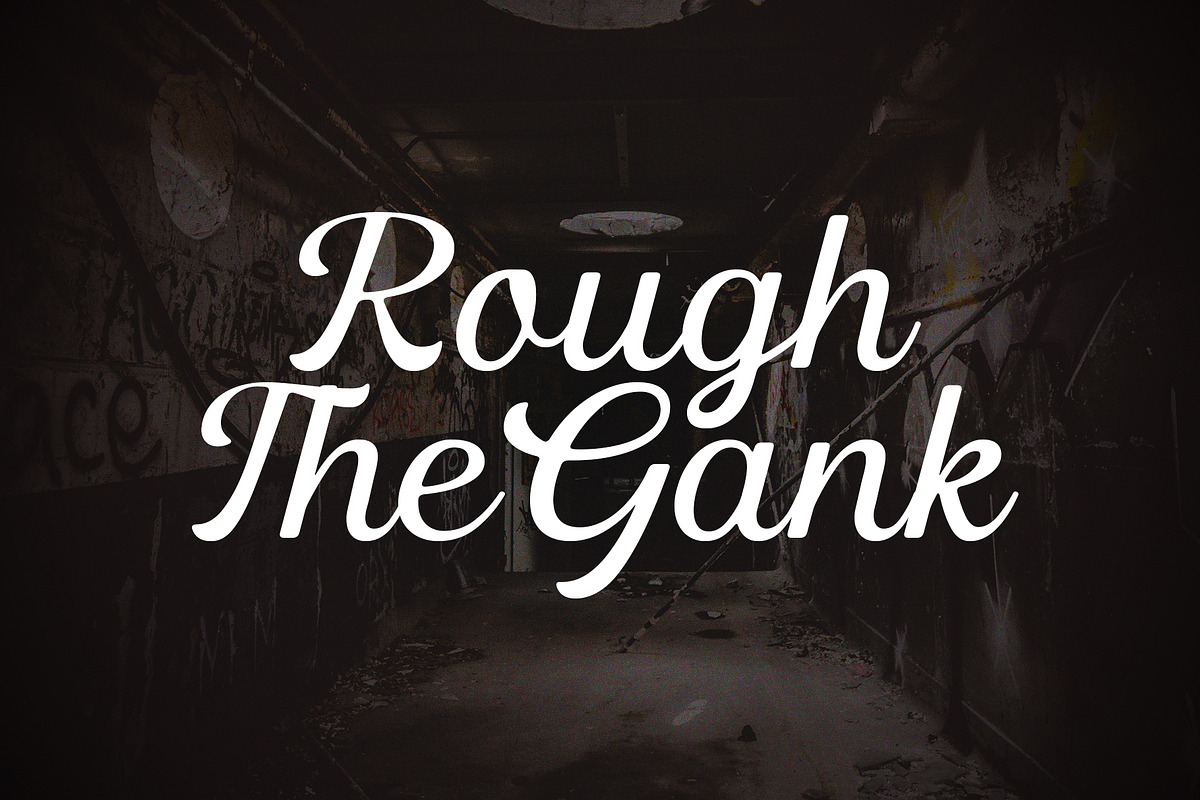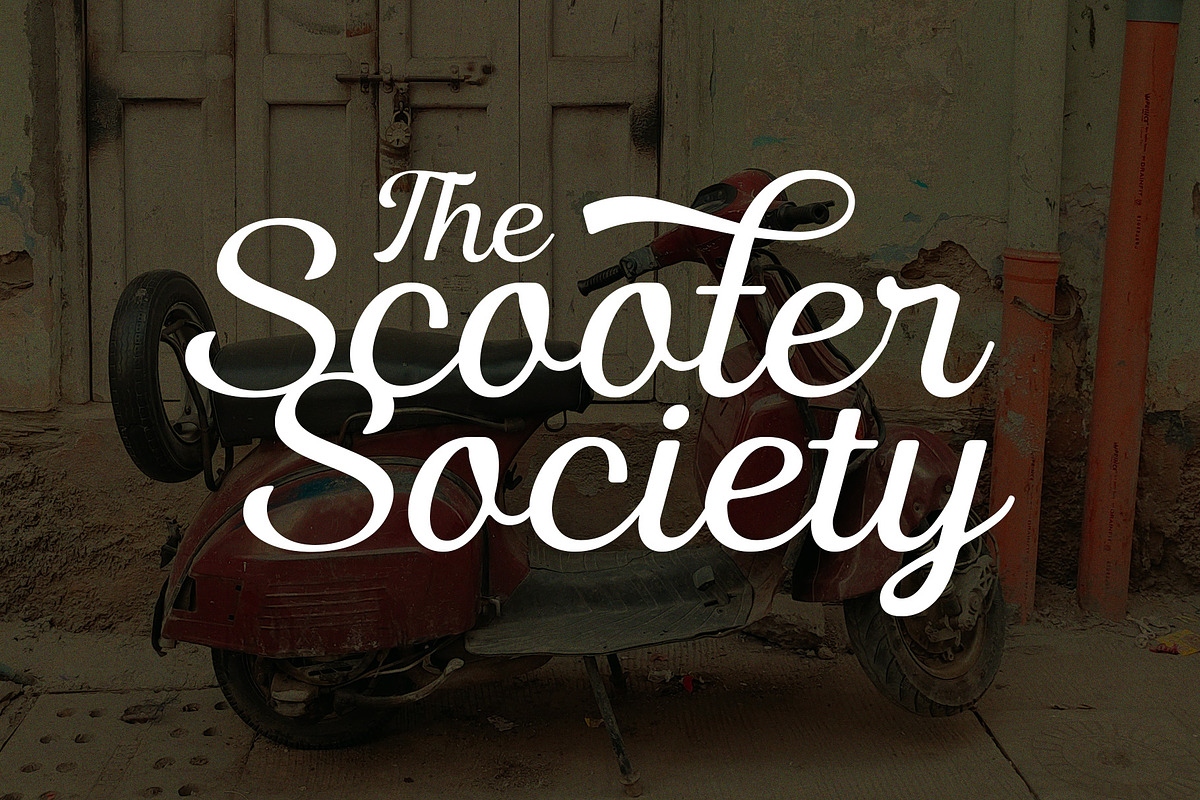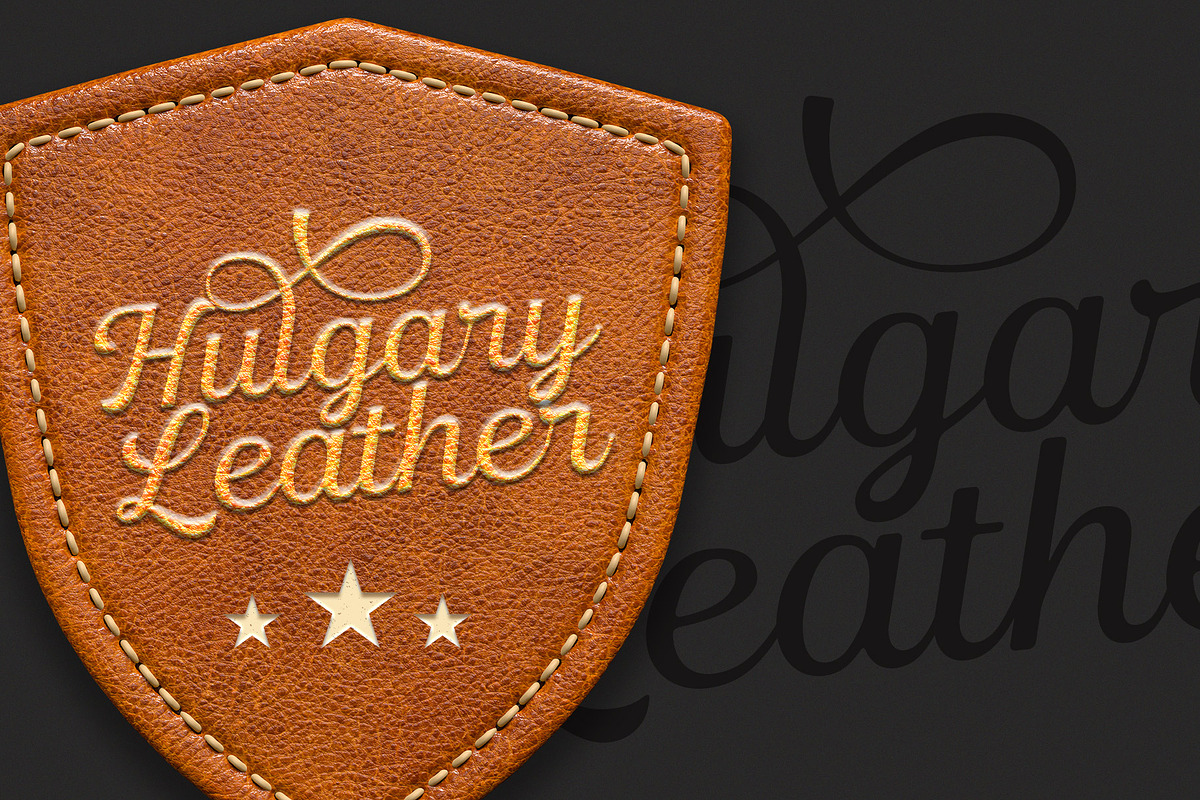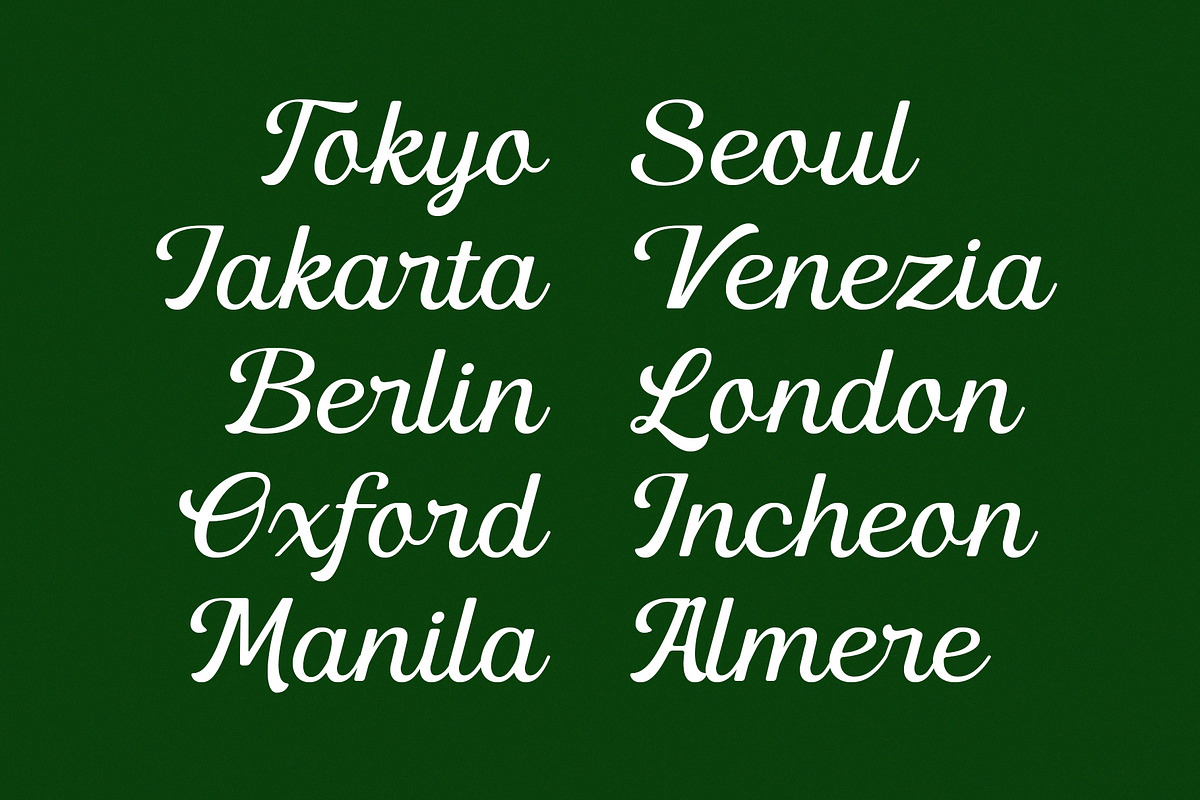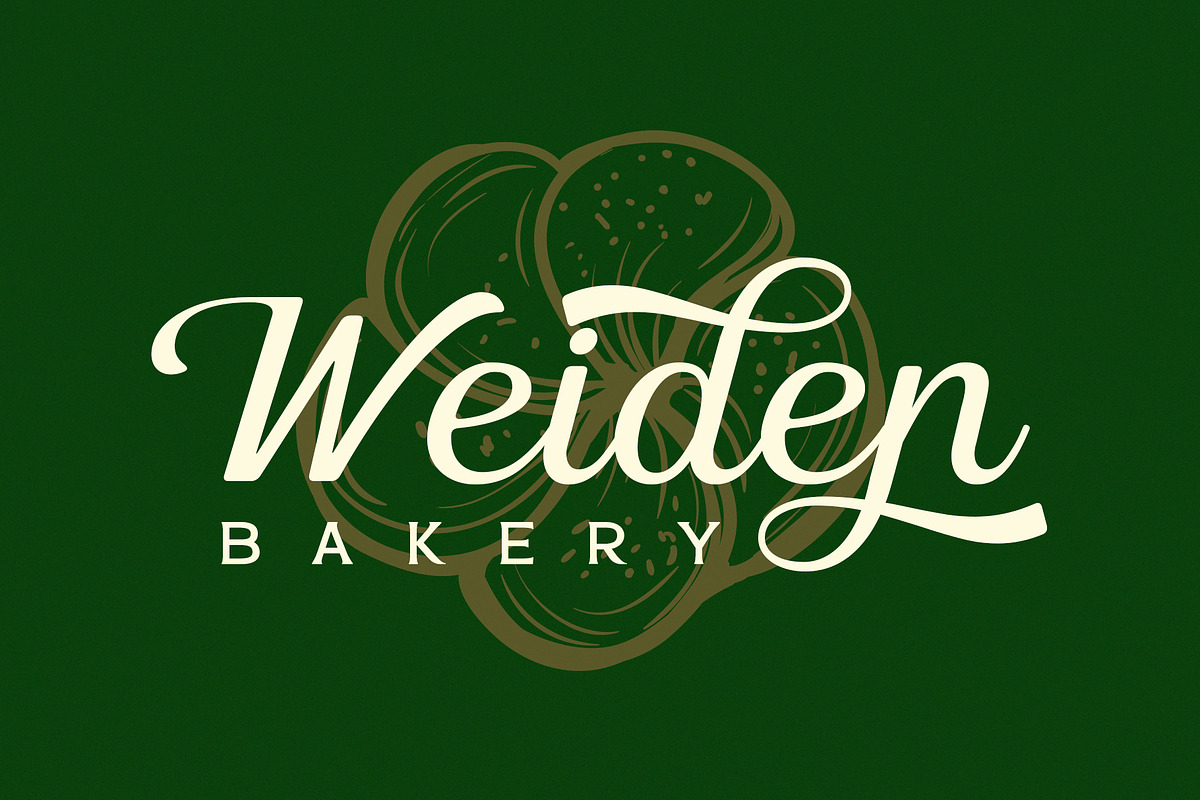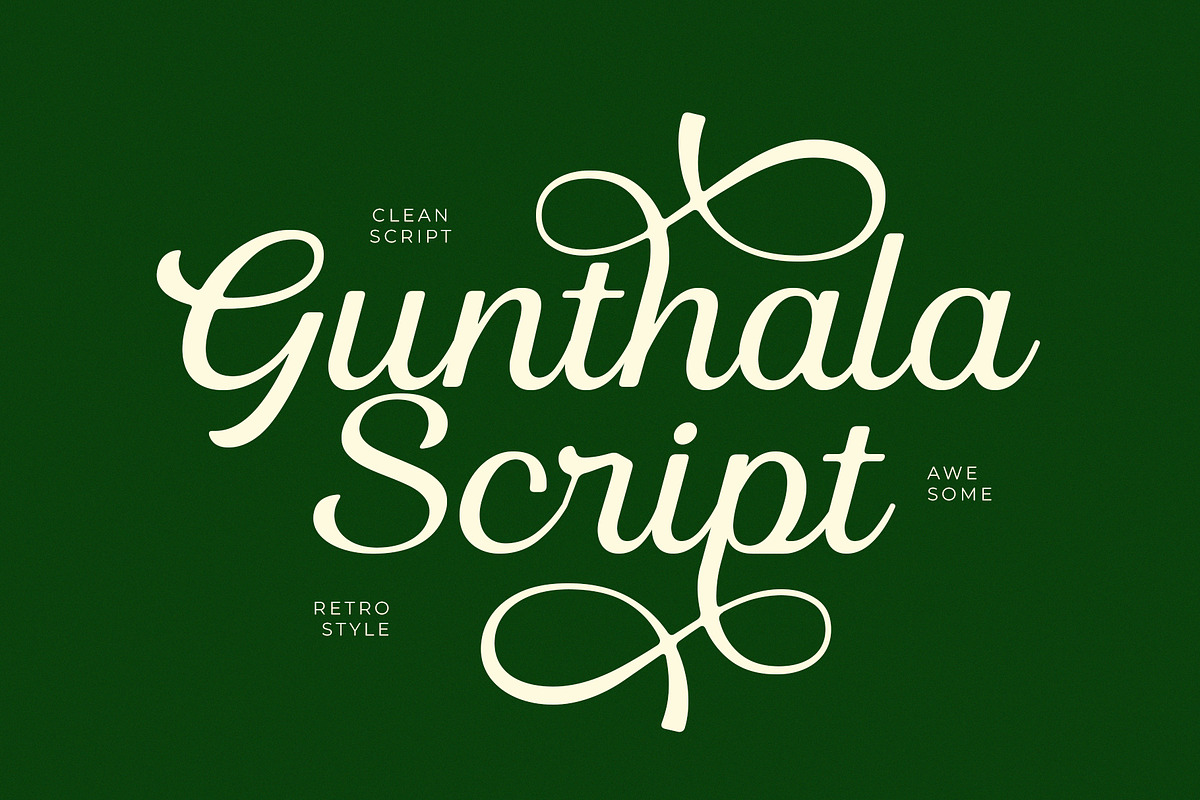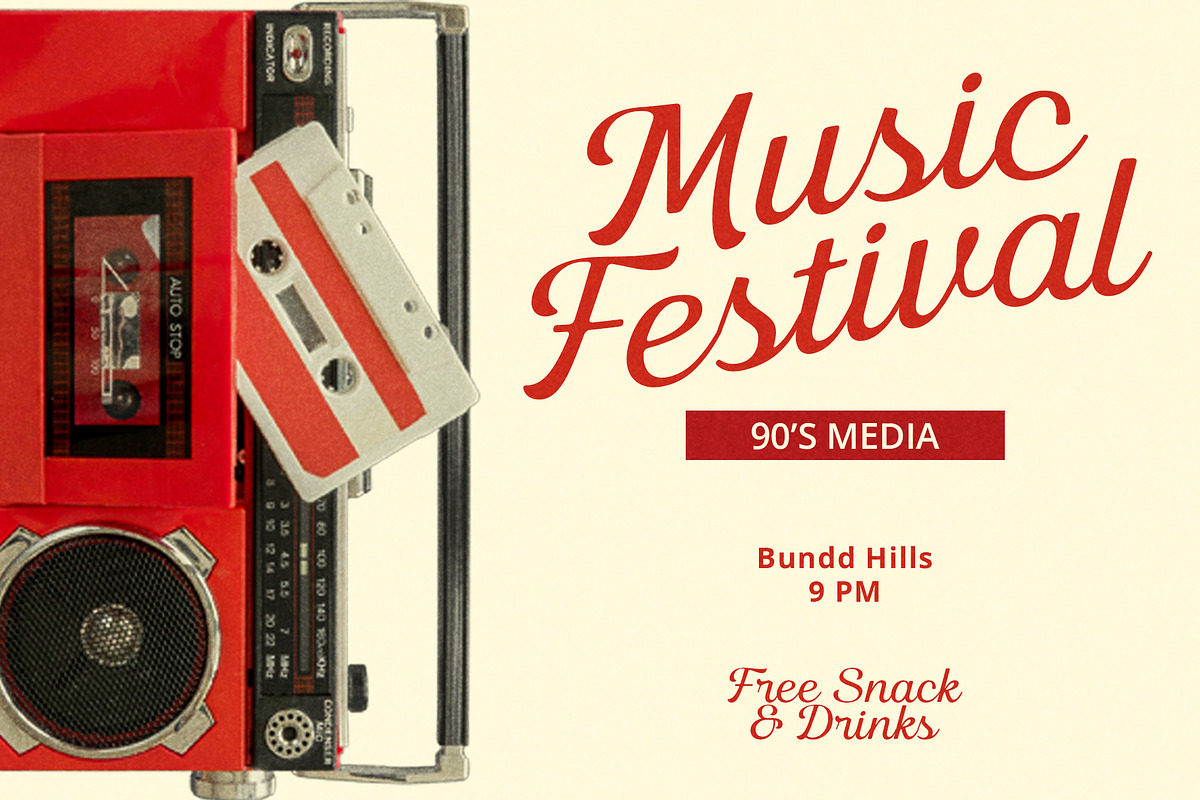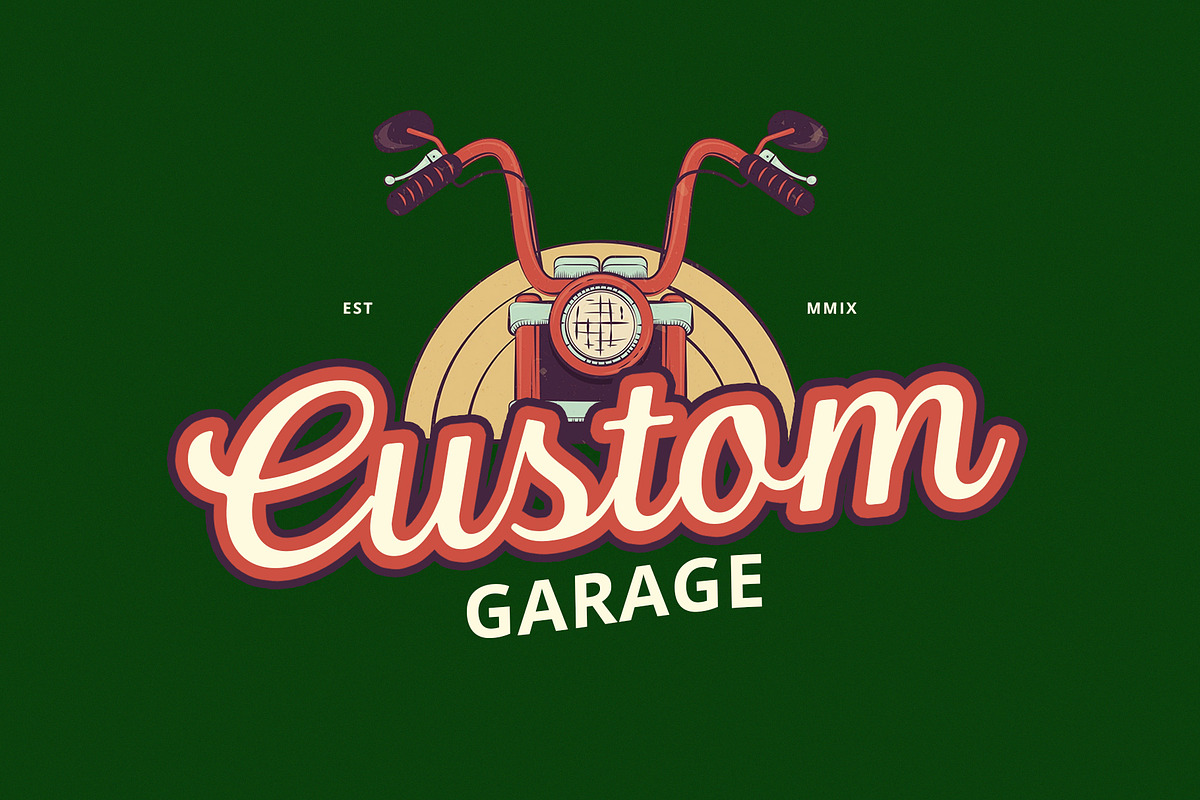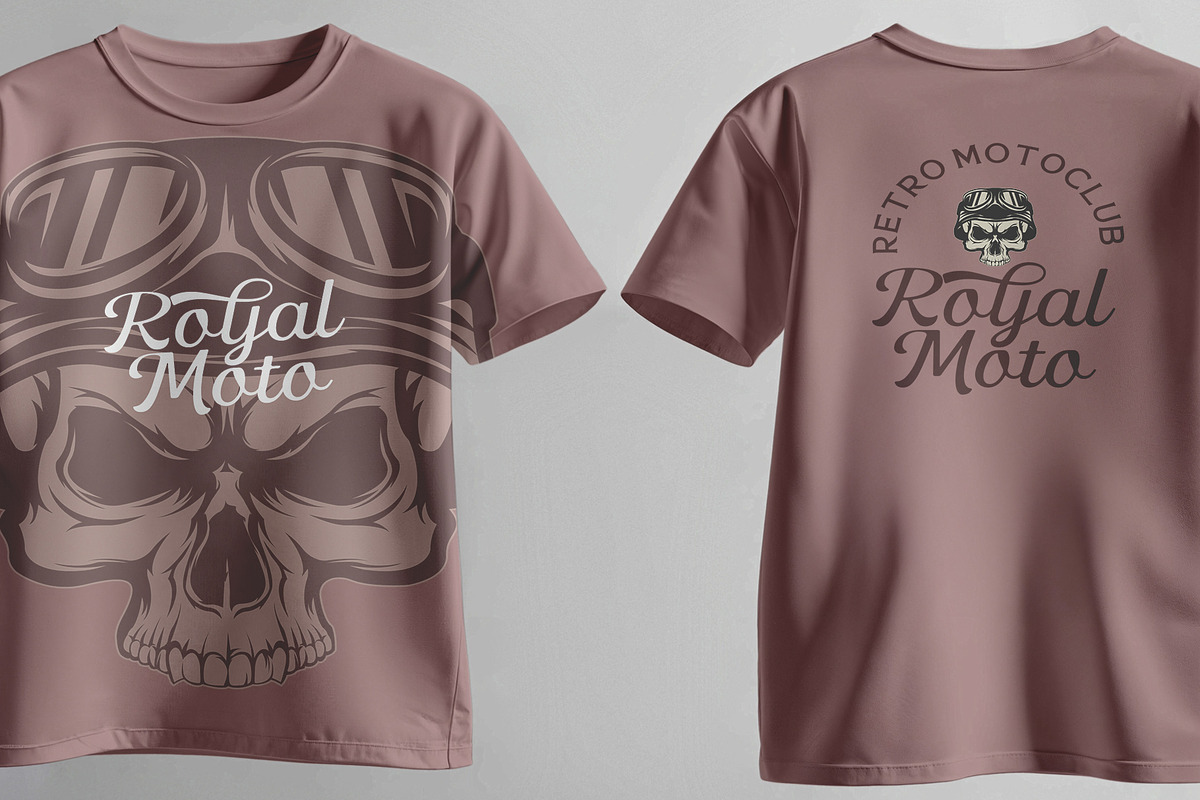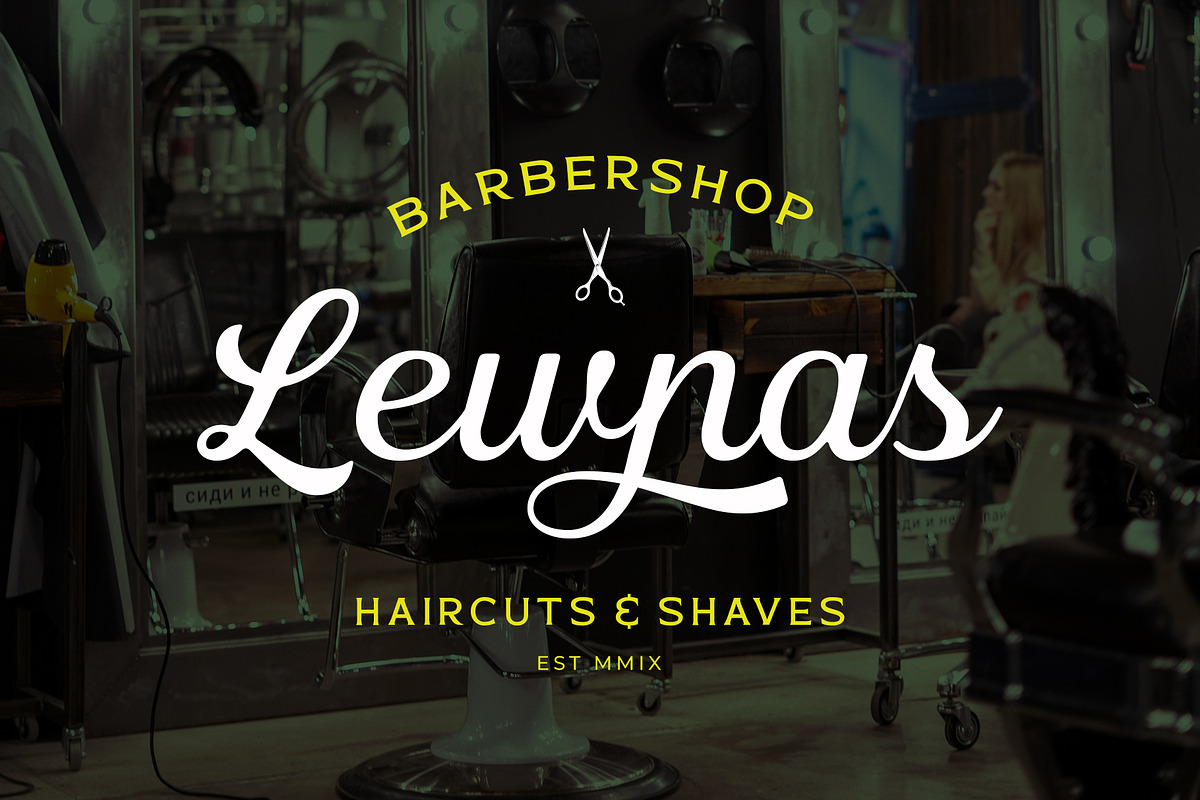
Gunthala Script
Gunthala – A Clean Retro Classic Script Typeface Gunthala is a script typeface inspired by a clean classic retro concept, combined with an elegant appearance thanks to its stylish swashes and alternate characters. Designed with graceful strokes, it brings a retro vibe while still maintaining a modern and fresh look in any design.
With a wide range of alternates and swashes, Gunthala adds flexibility and a dynamic touch to your creative work. It’s perfectly suited for logos, custom lettering, t-shirt designs, illustrations, magazines, article headlines, websites, and much more.
Gunthala Script helps you craft memorable and impactful typographic compositions with ease.